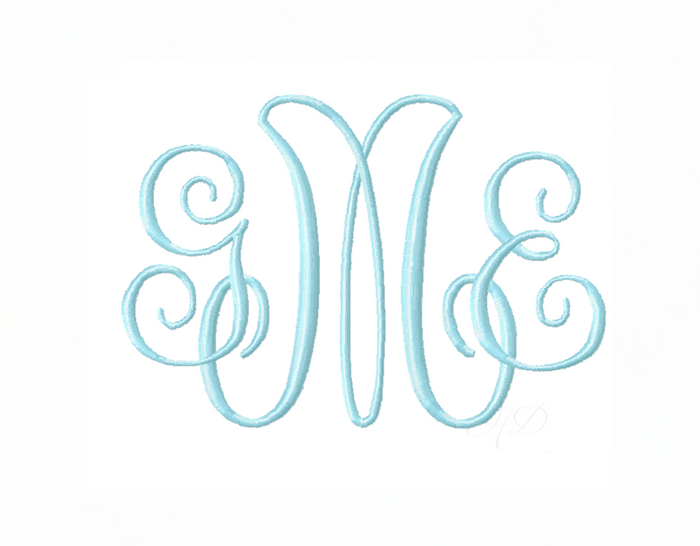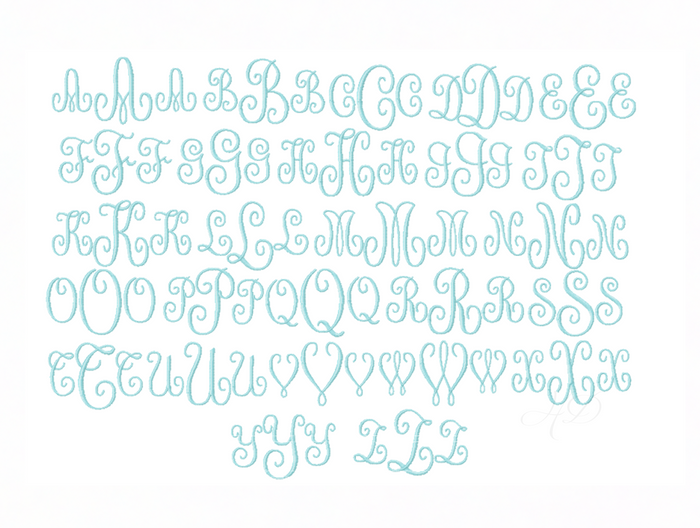
4x4 Lilly Anne Embroidery Font
Transform your embroidery projects with the 4x4 Lilly Anne Embroidery Font. This font package is a must-have for any embroidery enthusiast, featuring five versatile sizes—1.5", 2", 2.5", 3", and 3.5"—perfectly tailored for monogramming. Each size comes with coordinating smaller letters to enhance your design, ensuring your projects stand out.